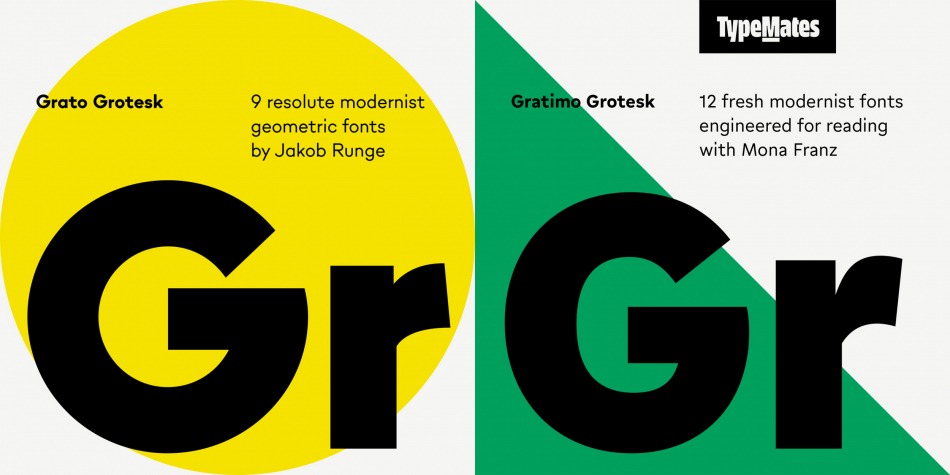
Grato & Gratimo Grotesk Font Family
Grato & Gratimo Grotesk Sans Serif Font
This is a unique and modern geometric sans serif font manufactured by TypeMates. If you need less geometry and more legibility, Gratimo Grotesk is engineered for text and interface design.
Grato Grotesk is the modernist of the Geometric Suite. A resolute typeface with flat apexes and no-nonsense angled terminals, it combines a clean, contemporary aesthetic with idiosyncrasy and warmth.
Grato is shaped by pure forms, low stroke modulation and square dots that contrast with almost perfect circles. Grato Grotesk takes that core and pursues the industrial logic of early German geometric typefaces. The result is a typeface of quirks and clarity, a substantial family for identity and editorial work. With a spectrum of nine weights, from fine Hairlines to super heavy Blacks, Grato can organise complex typographic hierarchies with ease.
Gratimo Grotesk is an utilitarian family purpose-built for everyday use, a powerful workhorse that combines elementary shapes and precise construction.
Where Grato Grotesk revels in pure geometry, Gratimo Grotesk has a practical focus. With a robust x-height, open apertures and generous spacing, its more restrained forms were the result of Grato being redrawn for reading. The result is a neo-grotesque that draws on American Gothics from the early 20th century and makes something fresh.
An allrounder specialising in smaller reading sizes and lower resolutions, Gratimo Grotesk is suitable for user interfaces and longform writing. With a compact texture, it is efficient, robust and ready to work at any size. For serious typography, Gratimo comes equipped with six weights, from Thin to sturdy Black. For greater distinction, it has matching italics.
Both combined are a super pack with 21 font styles and a long-lasting companion for brands that value diversity in language and clear screen performance.